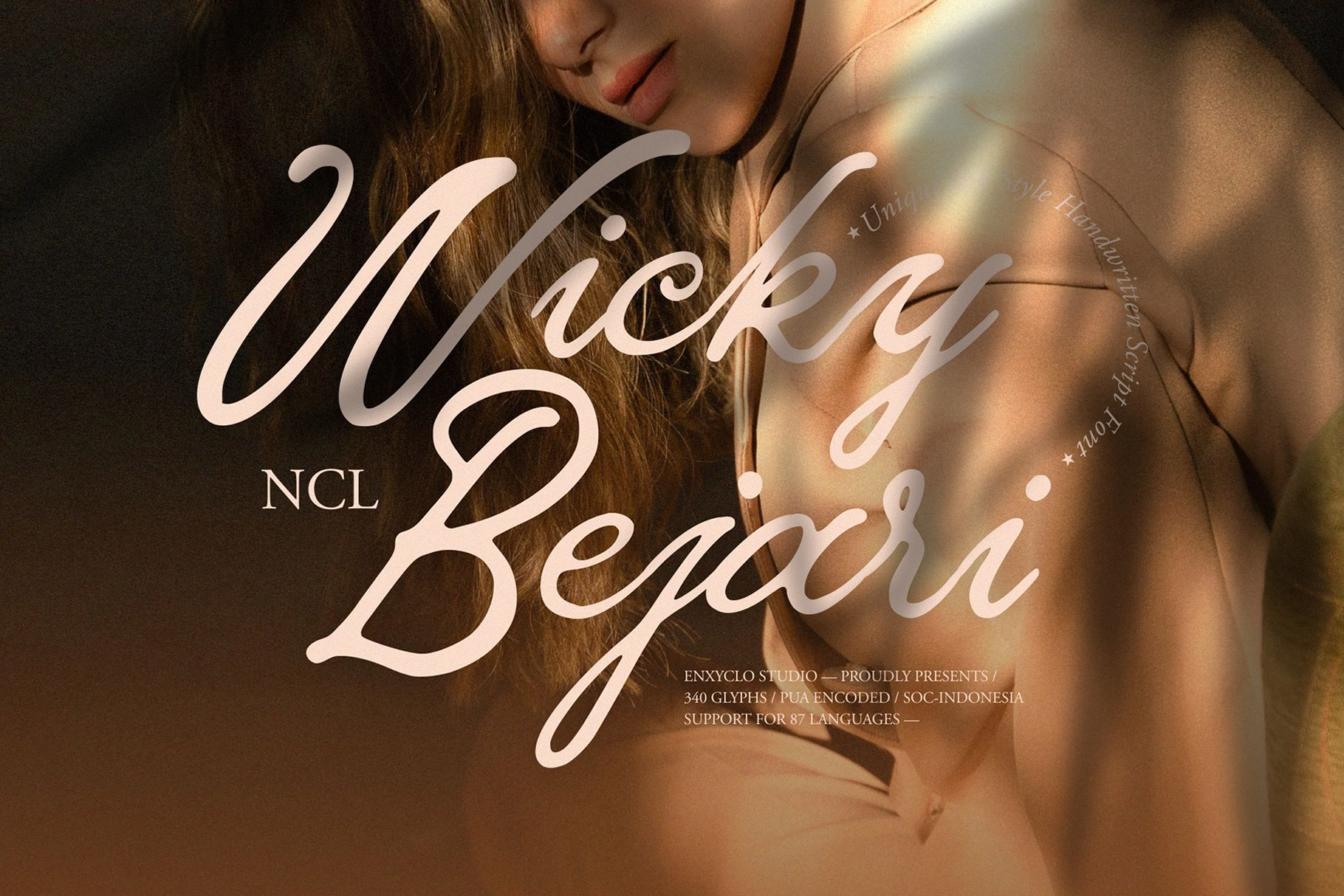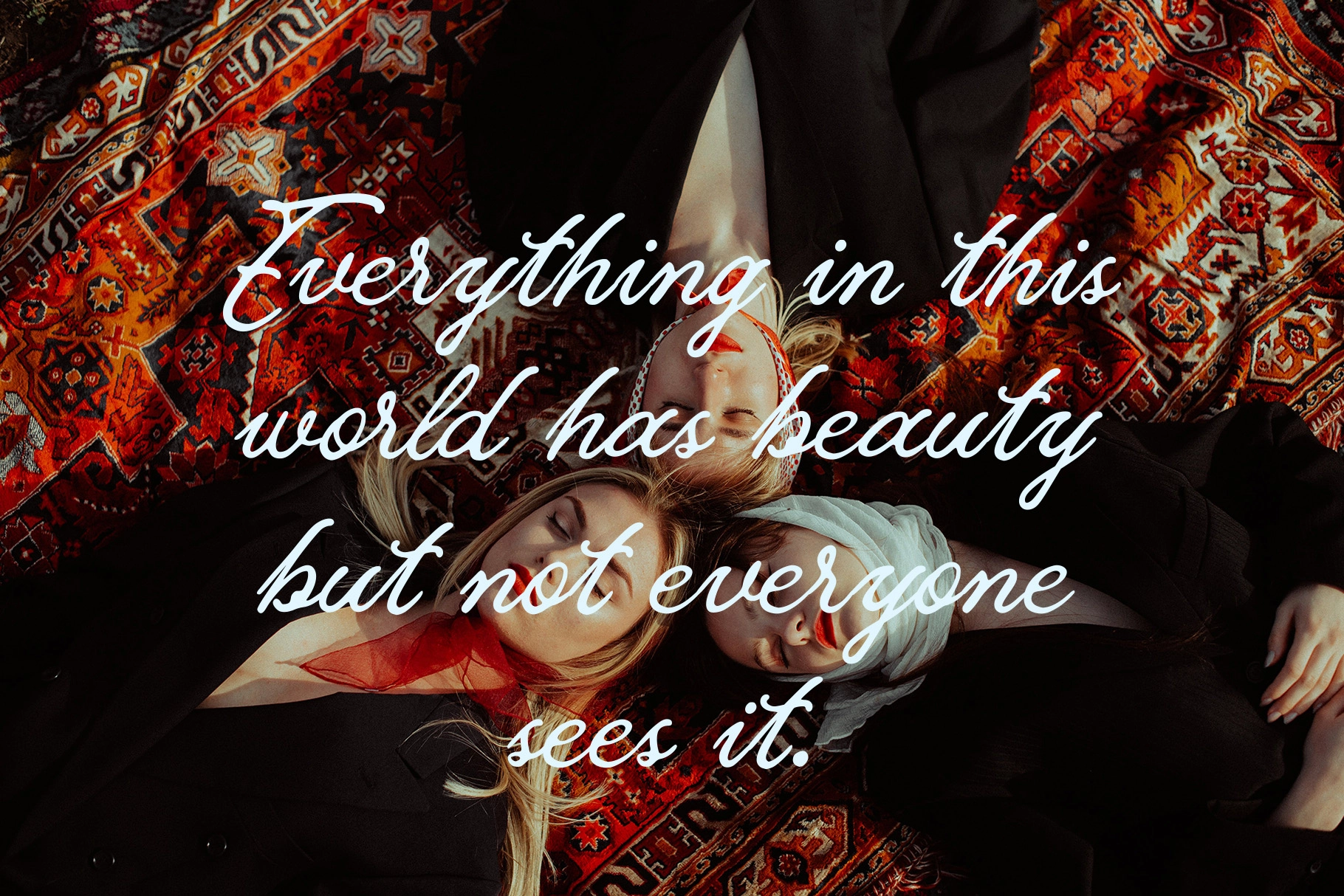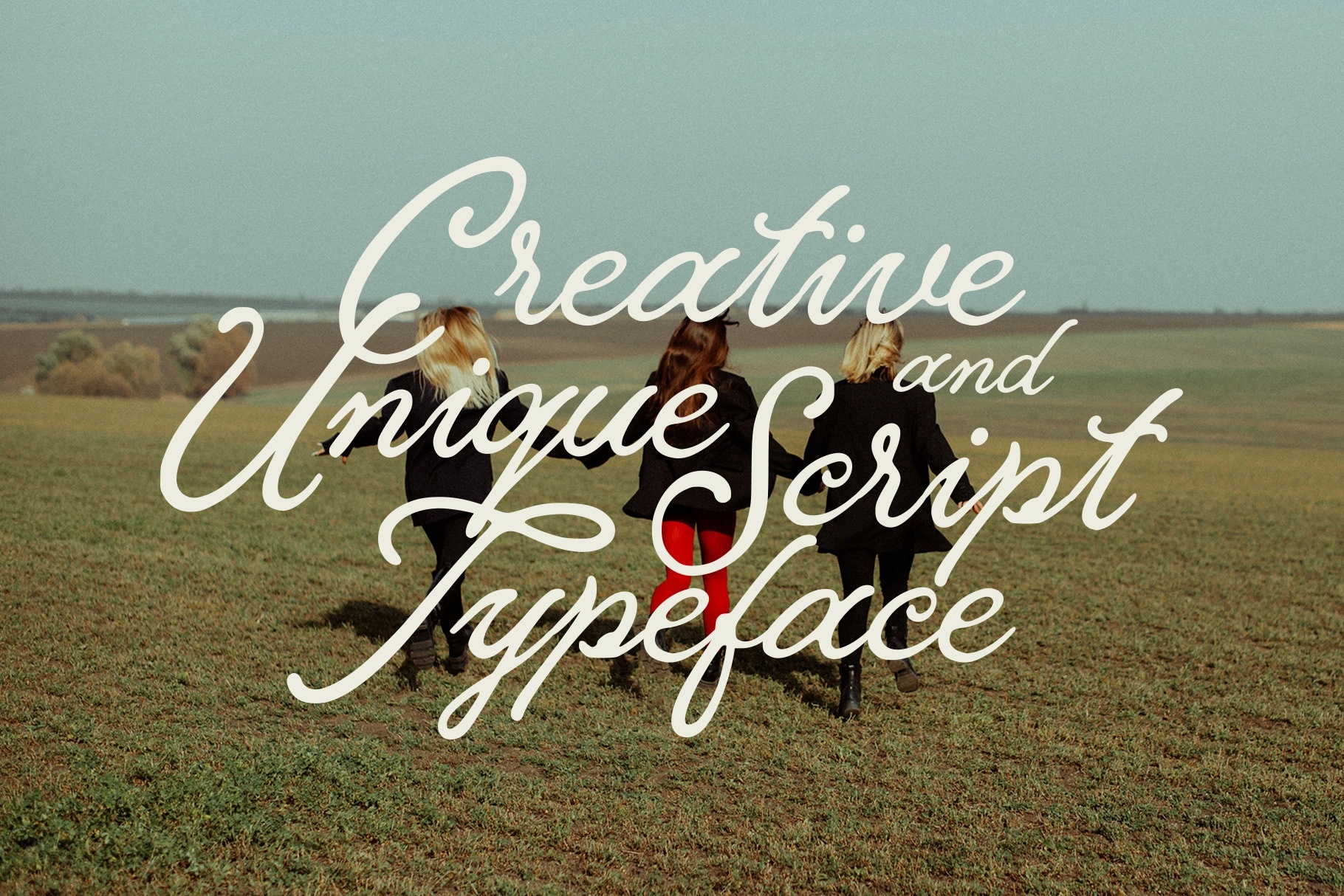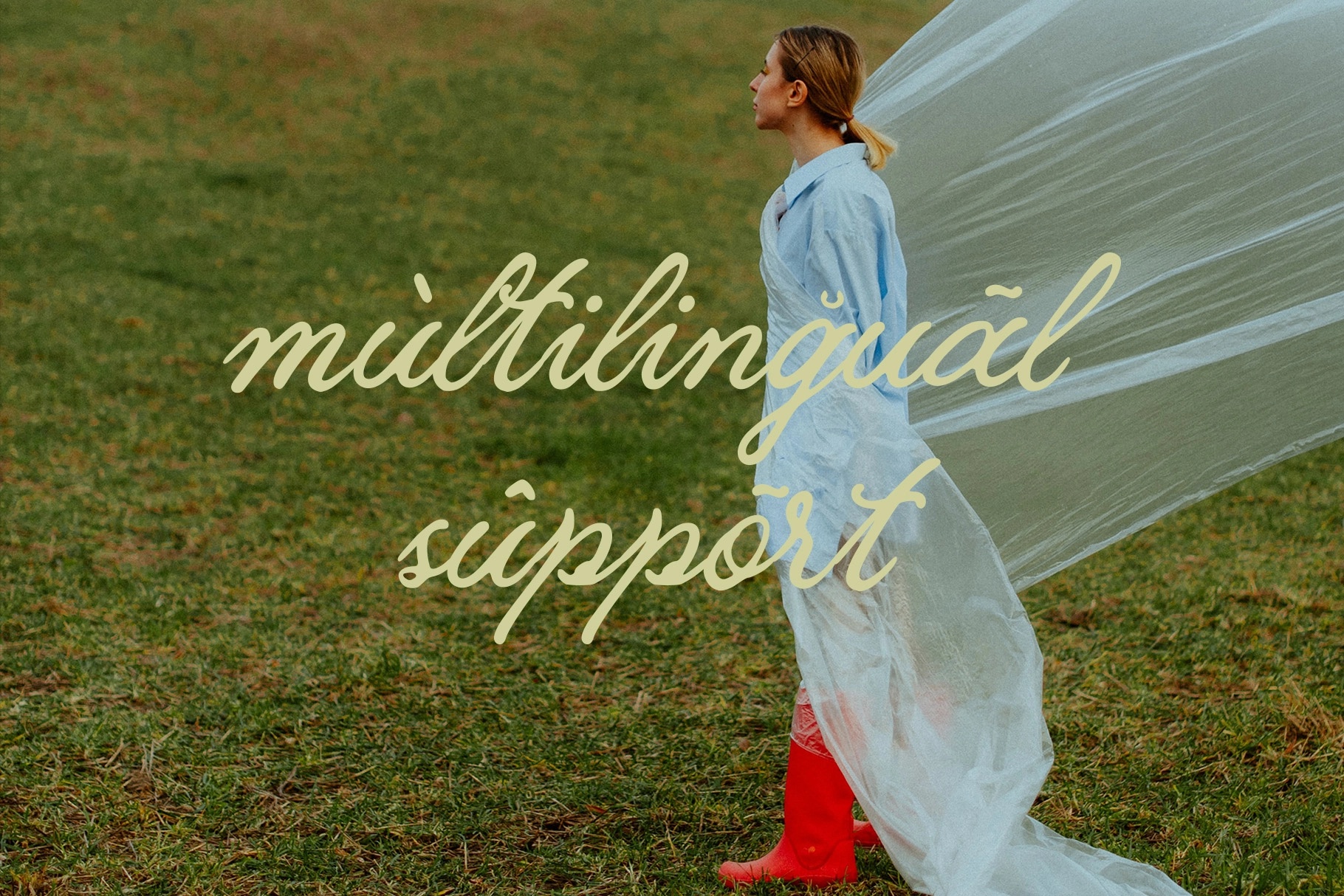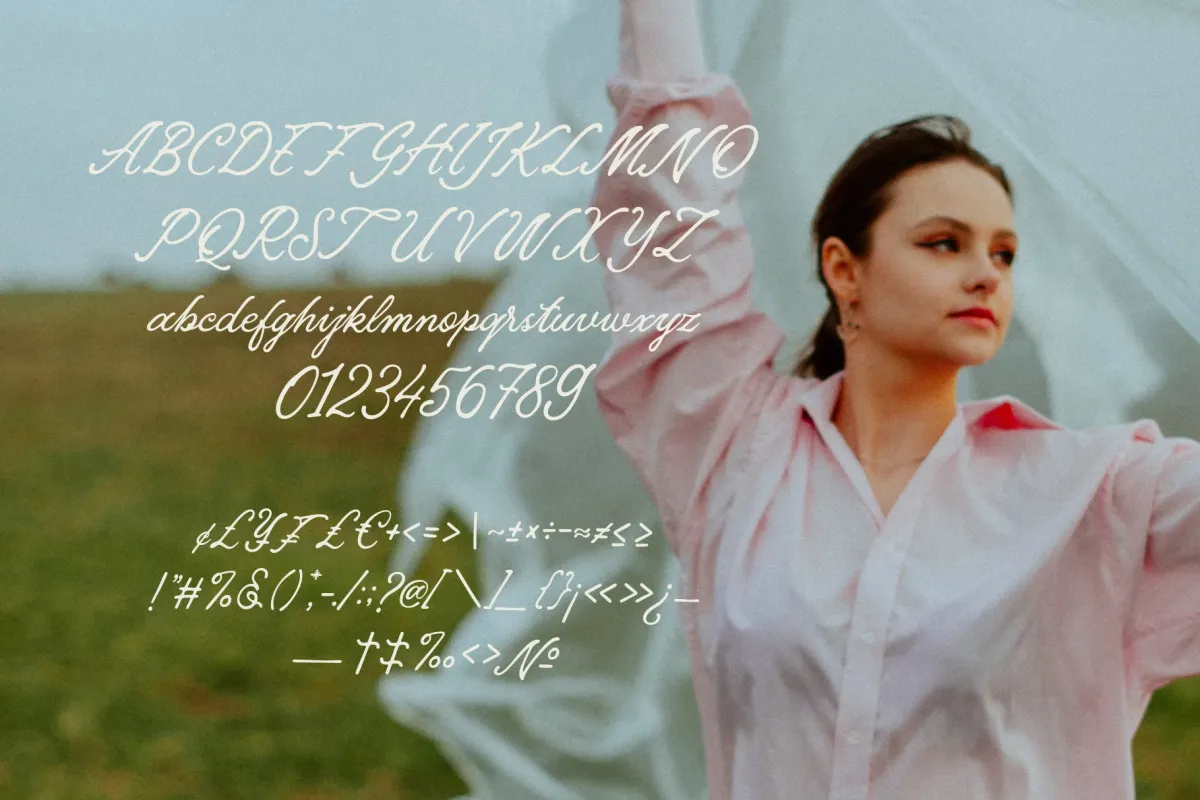
Wicky Bejari - Elegant Signature Script Font
Wicky Bejari – Elegant Signature Script Font is a stylish handwritten typeface inspired by expressive ink lettering and modern urban aesthetics. With its smooth flowing strokes and signature-style character, Wicky Bejari blends classic elegance with a contemporary handwritten feel. The natural rhythm of the letterforms gives designs a refined yet personal touch, making typography feel both sophisticated and authentic.
Designed to stand out in large compositions while remaining readable in smaller layouts, Wicky Bejari is perfect for logos, branding, posters, magazines, website headlines, merchandise, and creative campaigns. Its graceful script style adds personality and charm, allowing designers to create elegant and memorable visual identities.
- 340 Glyphs
- Uppercase & Lowercase Characters
- Punctuation, Symbols & Currency Characters
- Elegant Signature Script Style